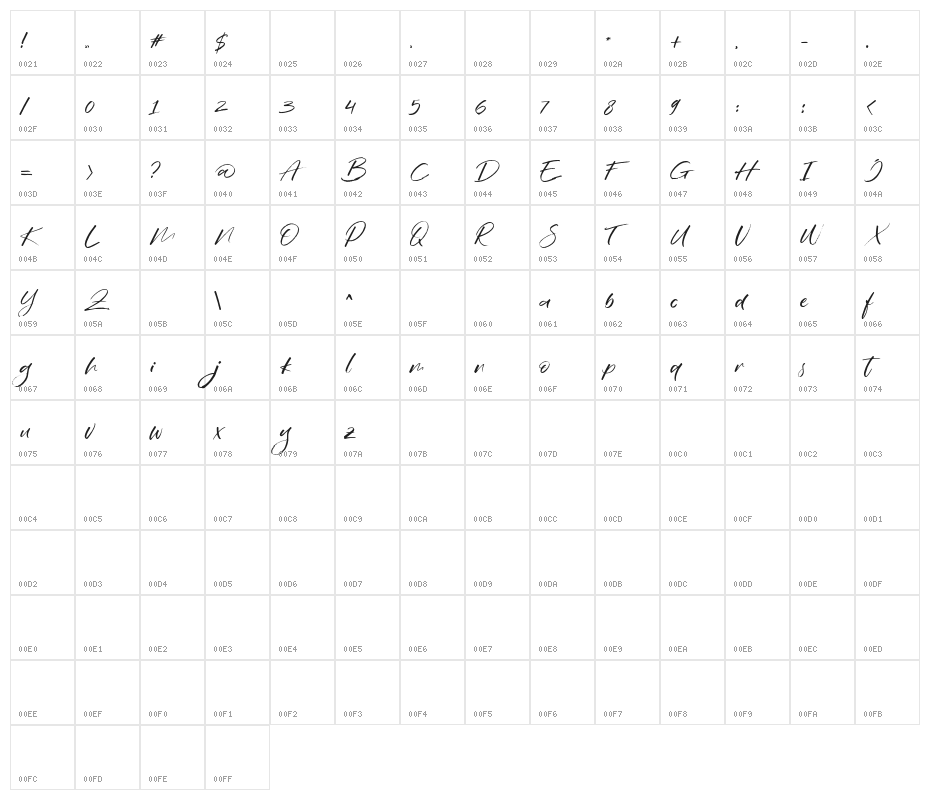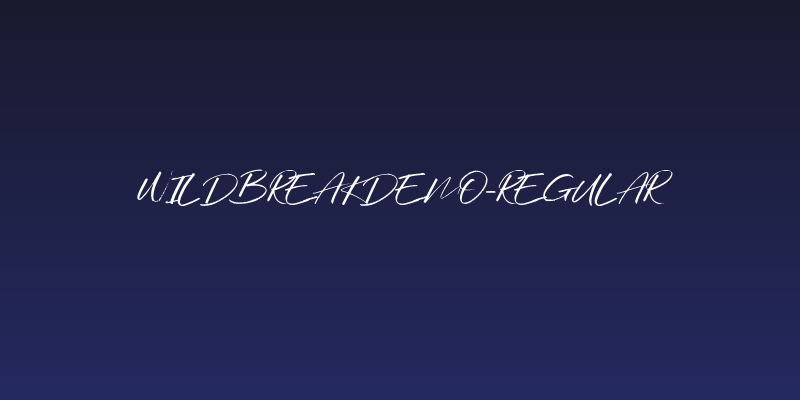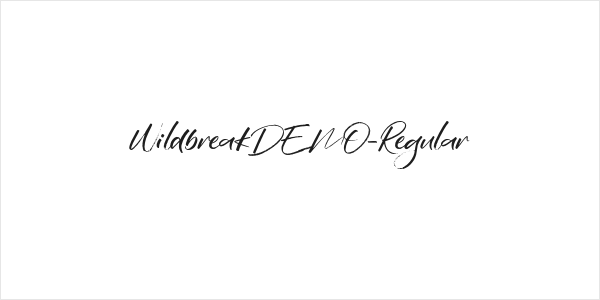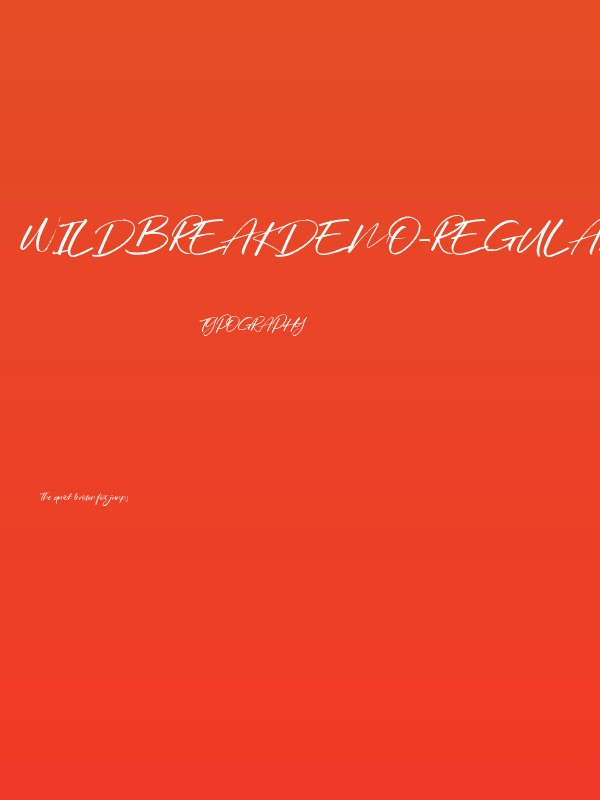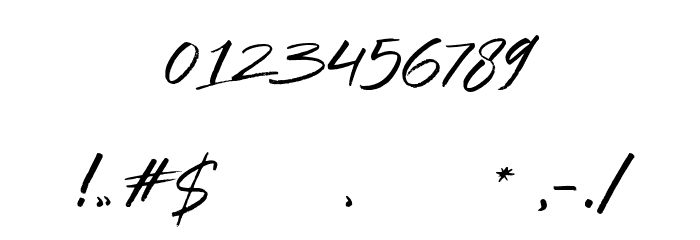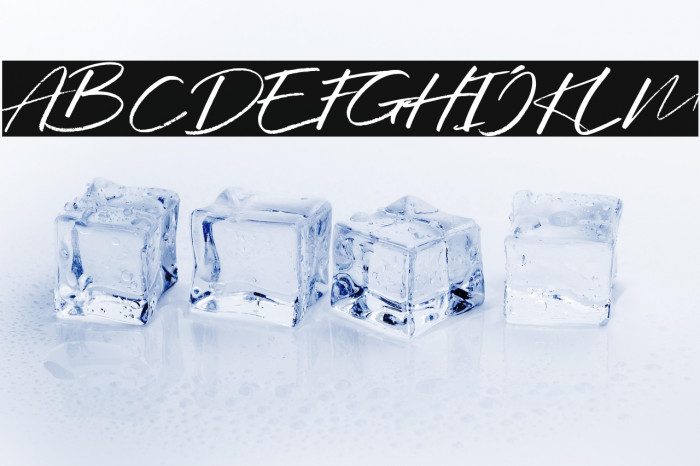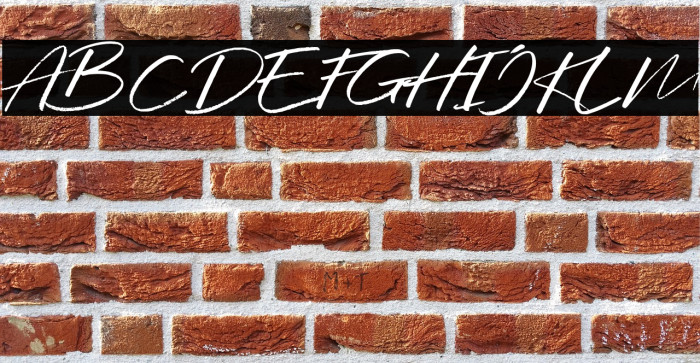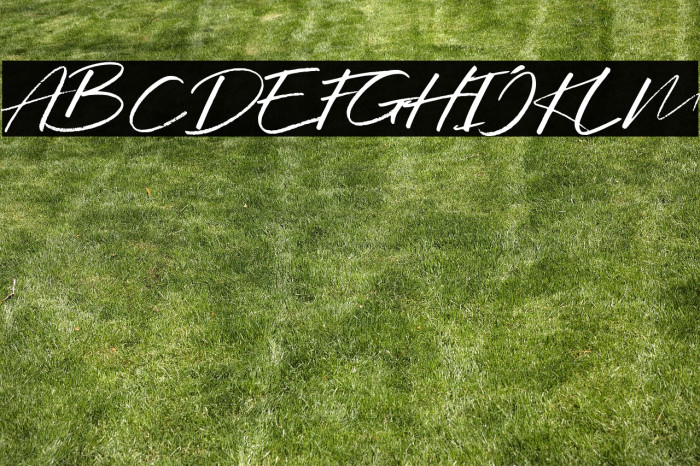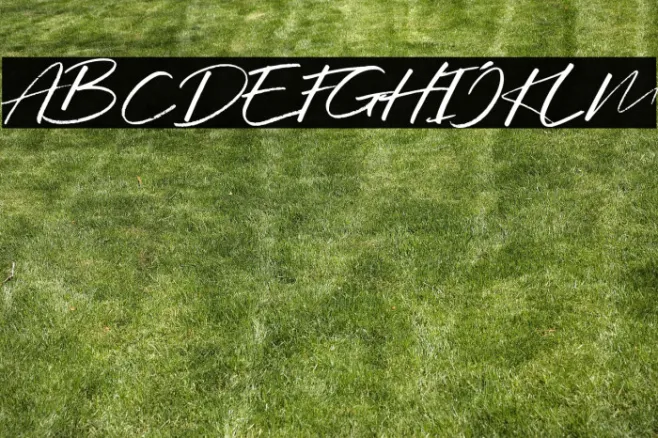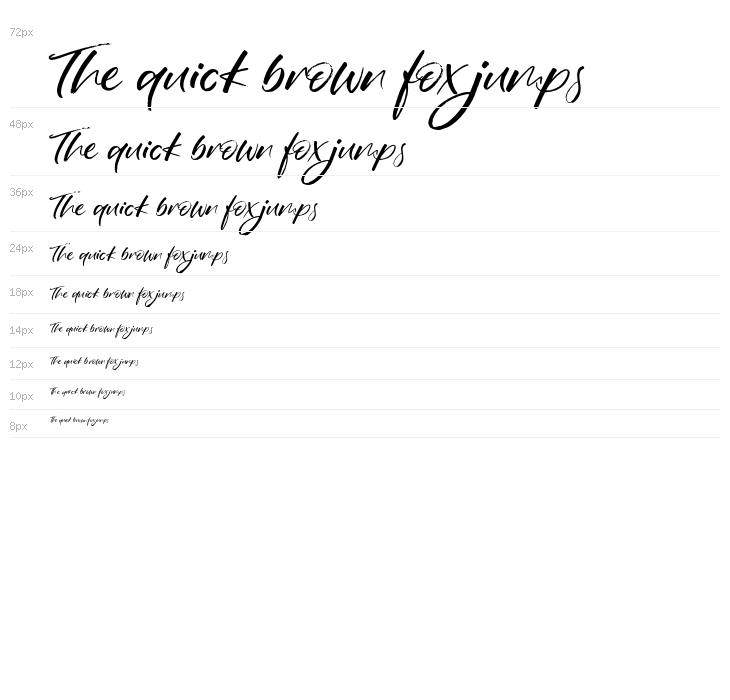
WildbreakDEMO-Regular Font
WildbreakDEMO-Regular Description
This font features a dynamic and expressive script style, characterized by fluid, sweeping strokes that convey a sense of movement and elegance. The uppercase letters are bold and dramatic, with a slight slant that adds to the overall sense of motion. The lowercase letters maintain a consistent flow, with smooth connections between characters, enhancing readability while preserving the artistic flair. Numbers and special characters are designed with the same attention to detail, ensuring a cohesive look across all text elements. The font's hand-drawn quality gives it a personal and authentic feel, making it suitable for projects that require a touch of sophistication and creativity.